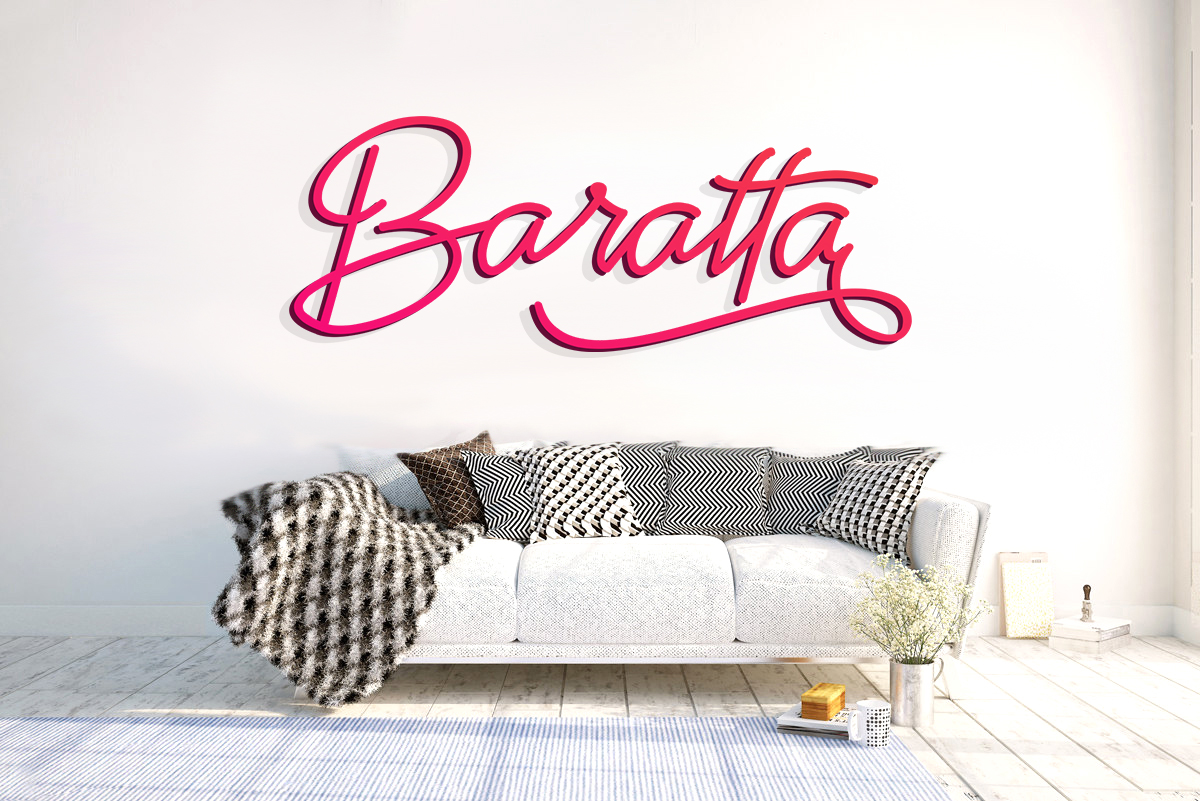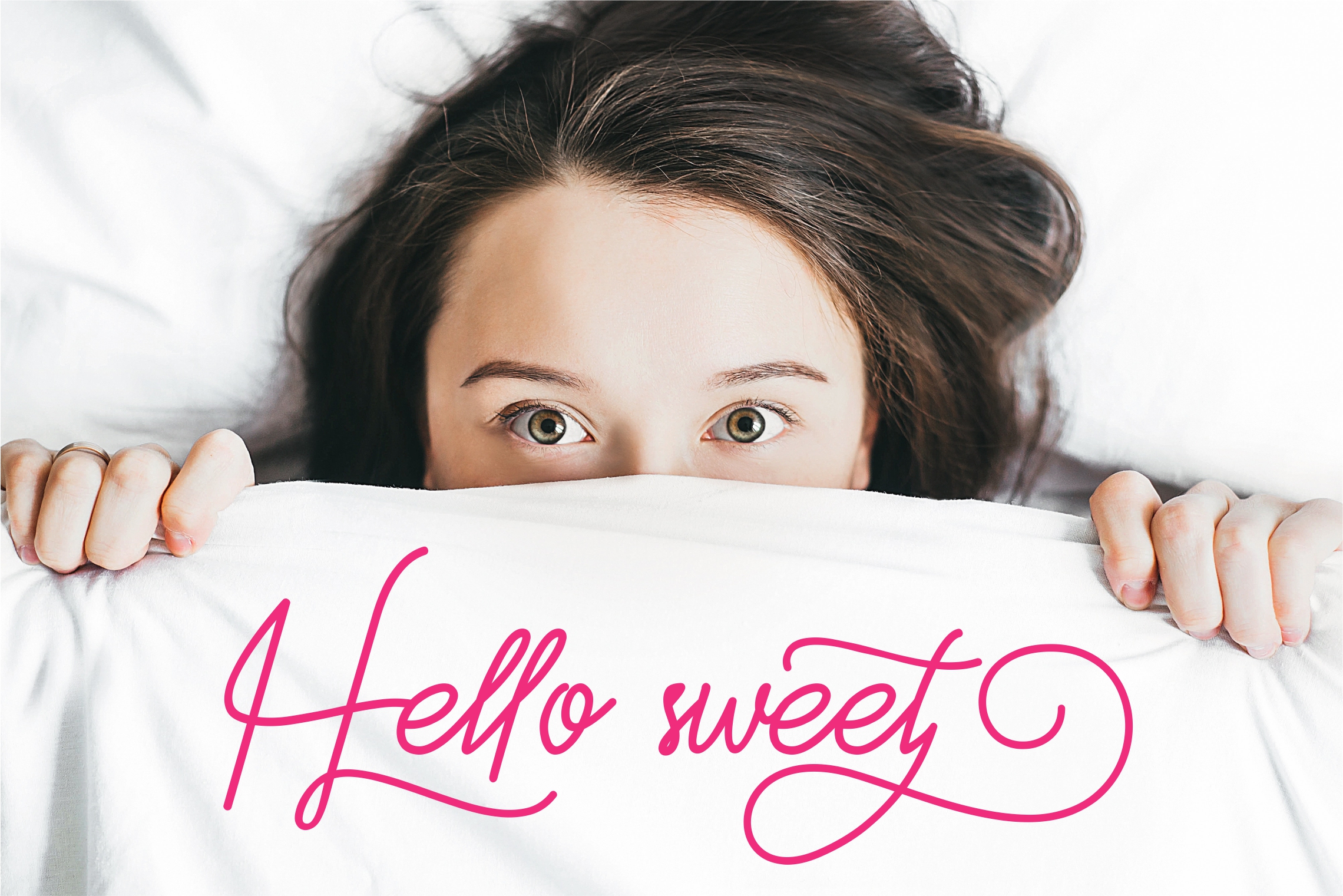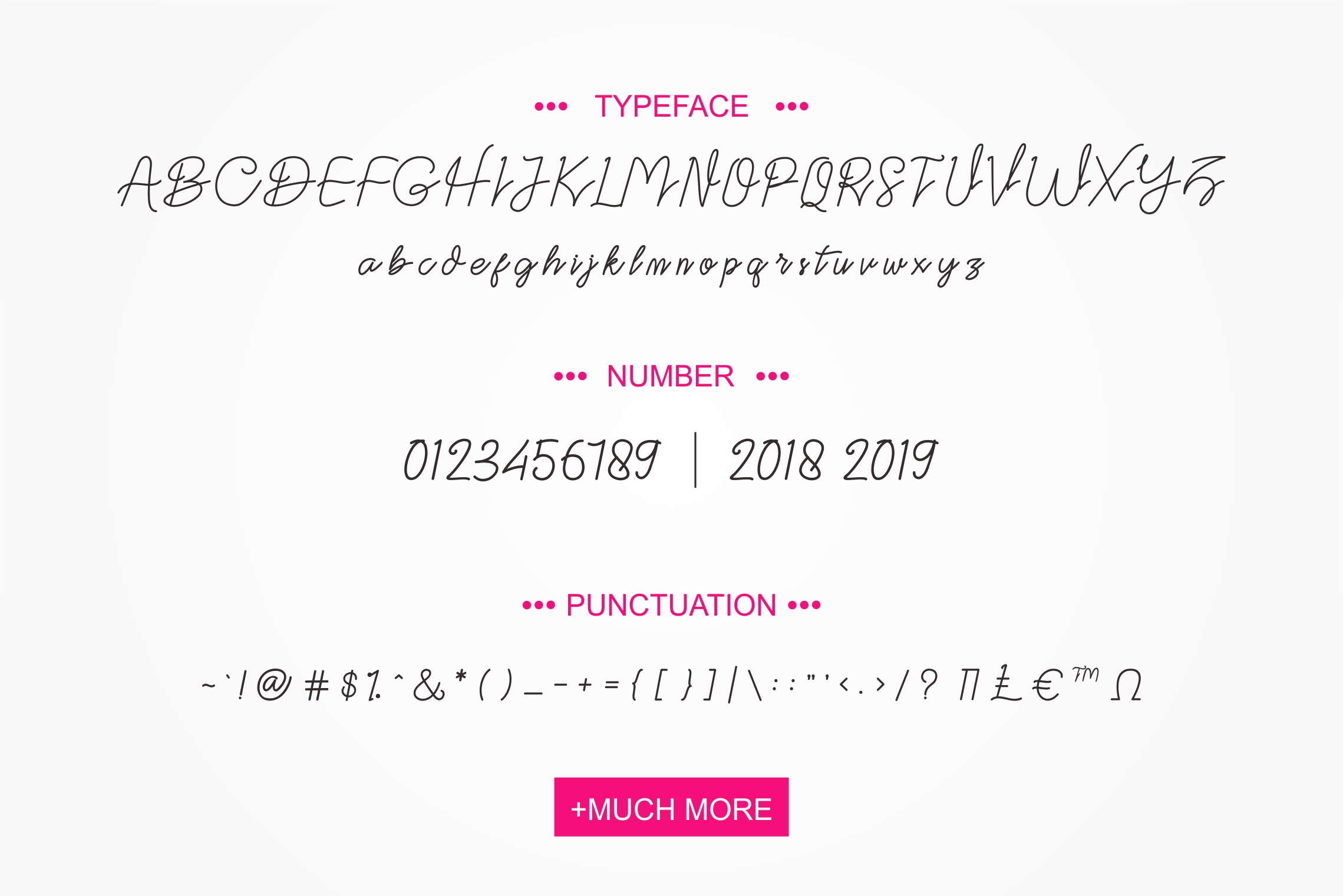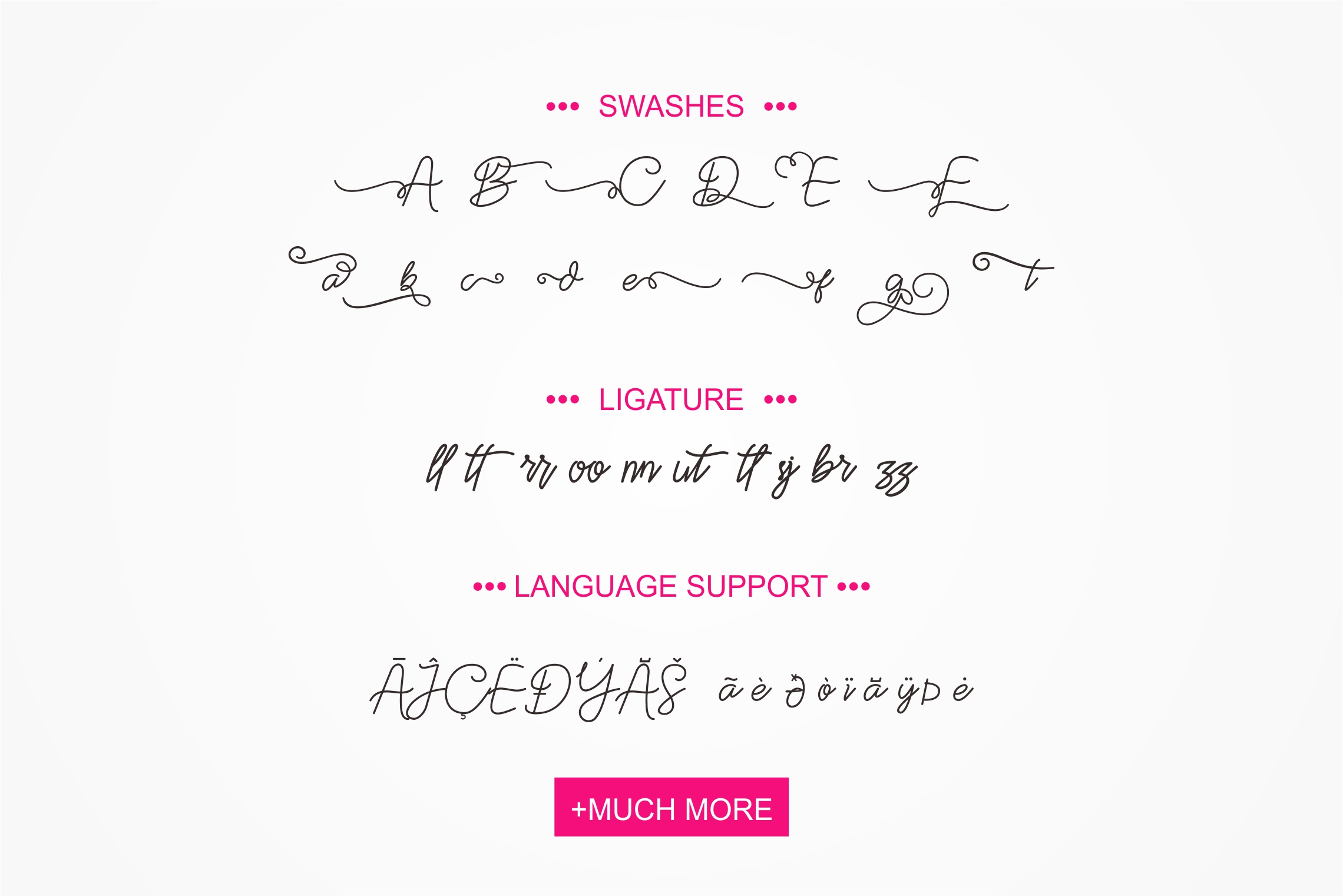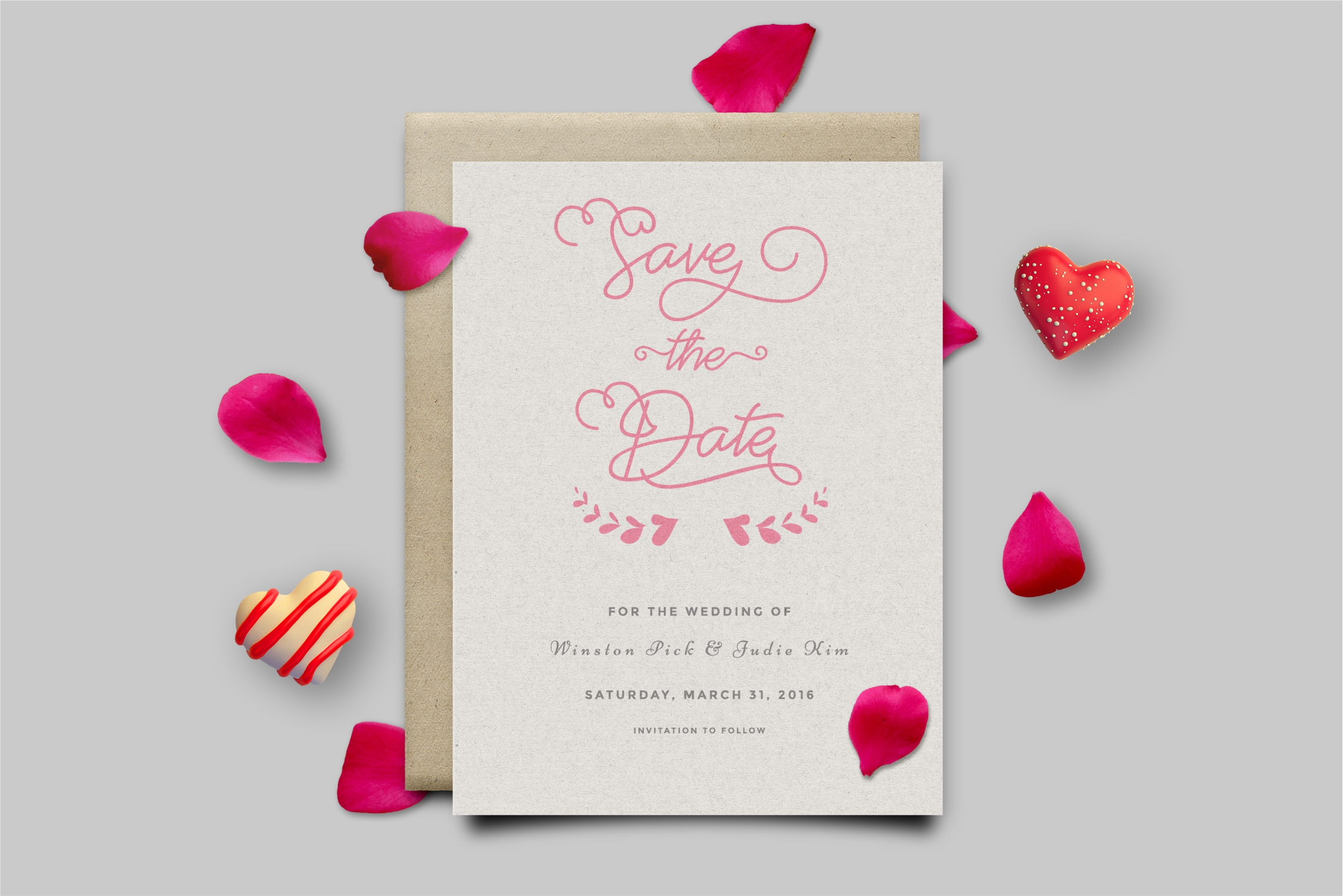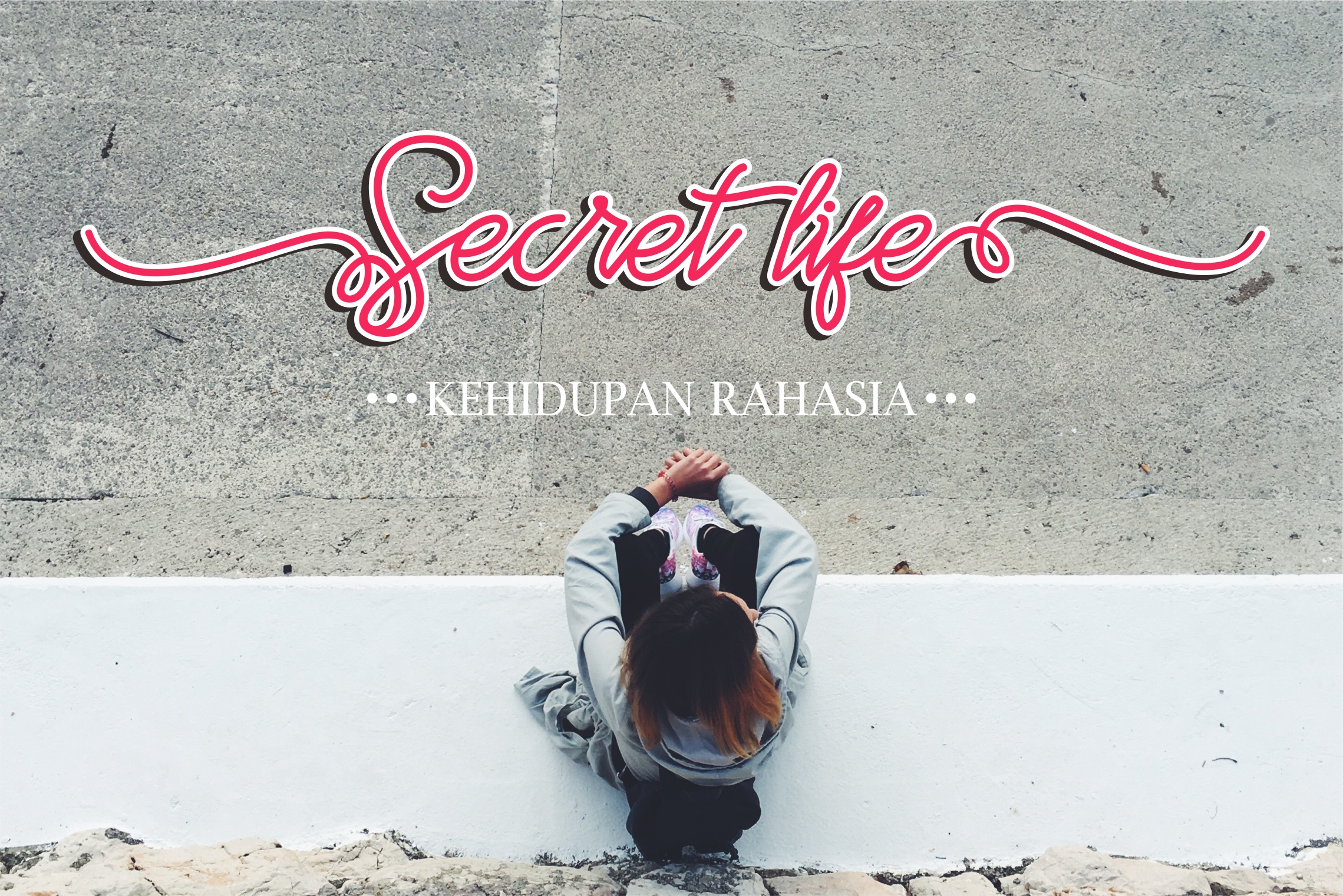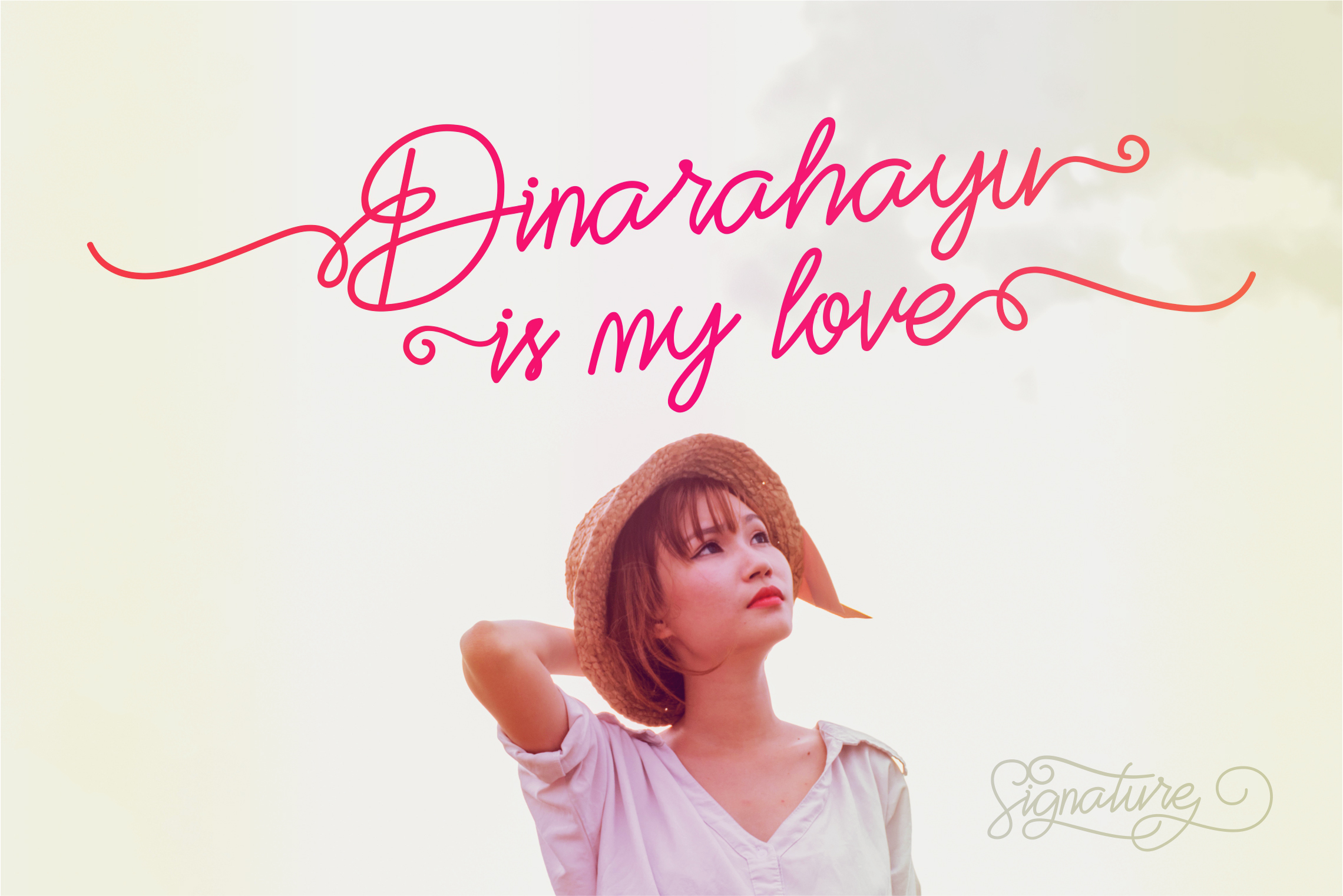
Baratta Font
Baratta is a gorgeous and flourished script font, perfect for displays and fun loving headlines. This script has a monoline weight and character alternates, giving you the ability to create truly unique typographic designs.